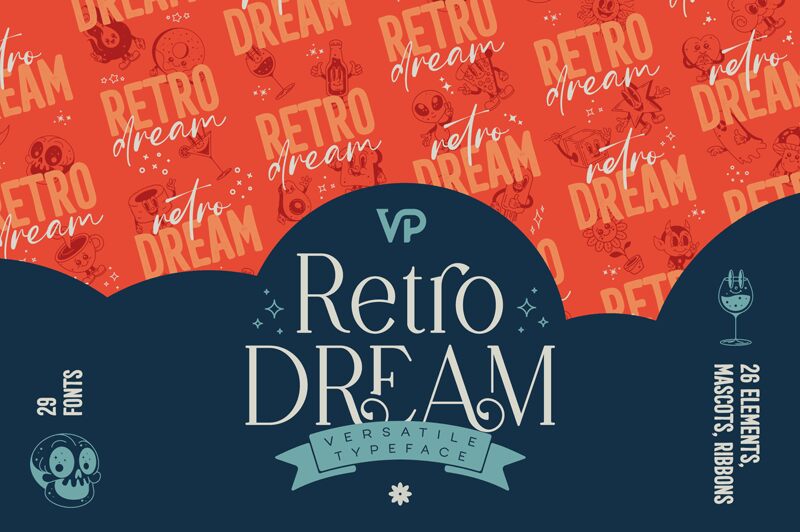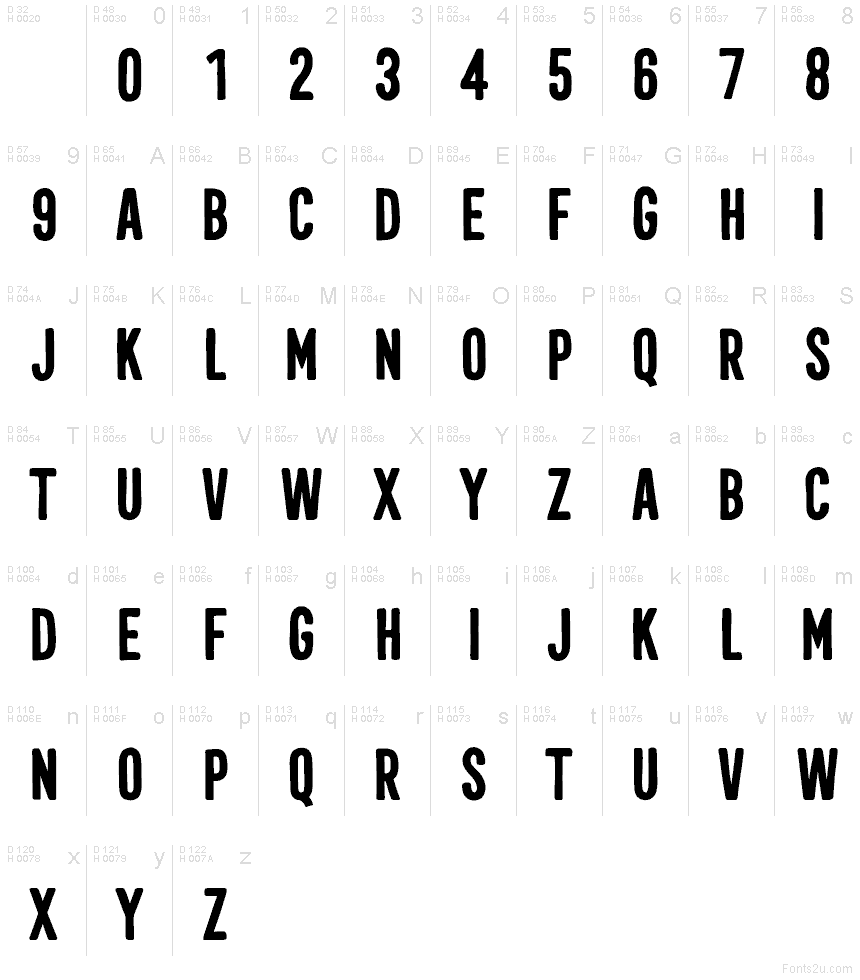
Podgląd czcionki Retro Dream Display Free Demo
Retro Dream Display font by VPcreativeshop is a free eroded display typeface in the Retro Dream family. Tall, condensed letters carry a soft, rounded silhouette with scuffed edges that look like ink pressed through a worn screen. The texture isn’t noisy-it’s controlled, giving headlines that lived‑in, tactile grit without killing legibility. Think sun-faded signage and record-store posters, but crisp enough for modern layouts.
Using Retro Dream Display, your titles grab attention on gig posters, coffee packaging, vintage apparel tags, social media promos, craft beer labels, and event flyers. Its steady rhythm and narrow width let you stack bold words in tight spaces while the distressed finish adds immediate character. This free font pairs smoothly with a clean neo‑grotesque for body copy; keep Retro Dream big and let the companion type do the reading.
Prezentacja i próbka wizualna czcionki Retro Dream Display Free Demo
Mapa znaków czcionki Retro Dream Display Free Demo
Mapa znaków czcionki Retro Dream Display Free Demo: Podstawowy łaciński, strona 1
Glify czcionki Retro Dream Display Free Demo — Podstawowy łaciński, strona 1